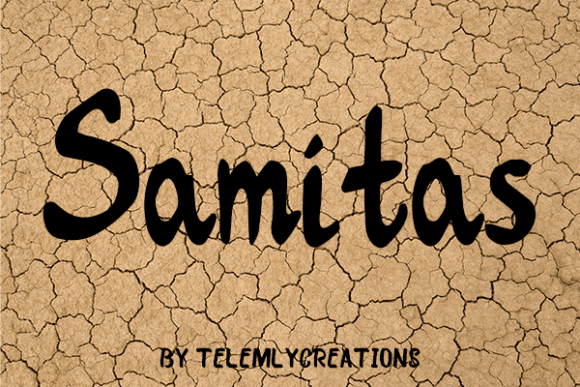
Introduction to Samitas Font
Have you ever been working on a creative project, pouring your heart and soul into a design, only to feel like it’s missing that special something? Maybe it’s a logo that needs a touch of personality or a quote that requires a dash of whimsy. That’s where the Samitas Font comes in – a charming handwritten font that’s about to revolutionize your design game.
As a designer, you’re always on the lookout for high-quality design resources that can elevate your work and make it truly stand out. The Samitas Font is a free download that’s perfect for creating eye-catching logos, branding, and quotes. With its unique and beautiful touch, every letter comes alive, making it an invaluable addition to your design arsenal.
Whether you’re working on a personal project or collaborating with a client, the Samitas Font is a valuable resource that’s sure to bring a smile to their face. Its transparent background and high-quality design make it a versatile choice for any creative project, from social media graphics to wedding invitations.
Key Features of Samitas Font
- Unique, elegant design suitable for creative projects, including invitations, posters, and more
- High-quality font with transparent background, allowing for seamless integration into various design elements
- Perfect for designers seeking a sophisticated, modern look for their creative projects
- Includes a wide range of characters, including Latin, Cyrillic, and Greek alphabets, making it a versatile design tool
Honest Review: Samitas Font
I recently had the chance to work with the Samitas Font for a creative project, and I must say, I was quite impressed. The high quality of this font is evident from the start, with its clean lines and elegant design making it perfect for a wide range of design applications.
What works well: ✨ The font is highly customizable, allowing you to easily adjust the size, color, and spacing to fit your specific needs. The transparent background option is also a great feature, making it easy to layer over other design elements. Additionally, the free download option is a major plus, making it accessible to designers of all levels.
- Customizable
However, there are a few limitations: ⚠️ The font is not compatible with all design software, and some users may experience issues with font rendering. Additionally, the font is not as extensive as some other options, with a limited number of styles and weights.
Overall, I’m thoroughly impressed with the Samitas Font. It’s a great design resource for anyone looking for a high-quality, customizable font. While it may have a few limitations, I believe the benefits far outweigh the drawbacks.
Tips for Getting the Most Out of Samitas Font
To get the most out of the Samitas Font, use it with a transparent background to create a clean and modern look. You can also use it in combination with other design elements to create a unique and eye-catching design.
The Samitas Font is ideal for use in logos, business cards, brochures, and other marketing materials. It’s also great for use in digital products such as ebooks, presentations, and websites.